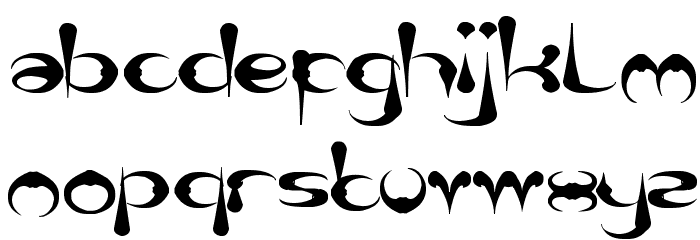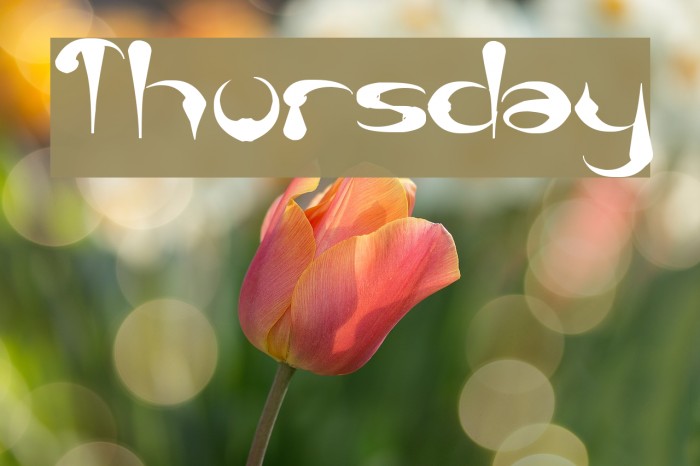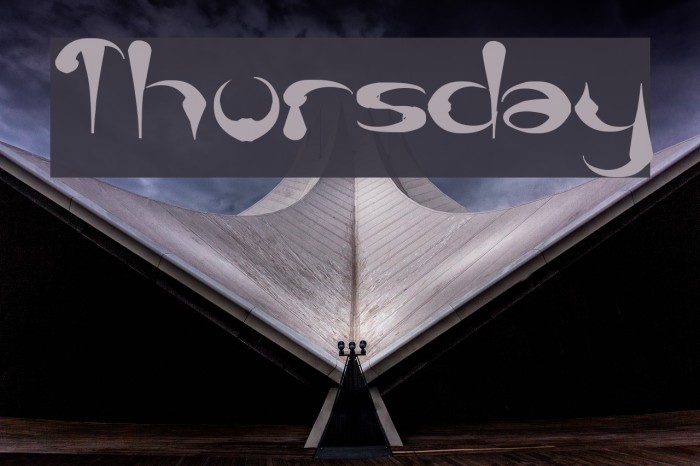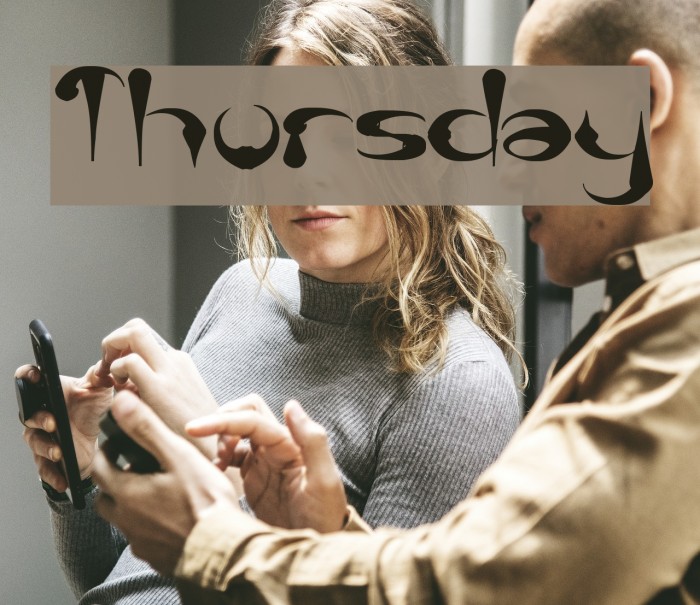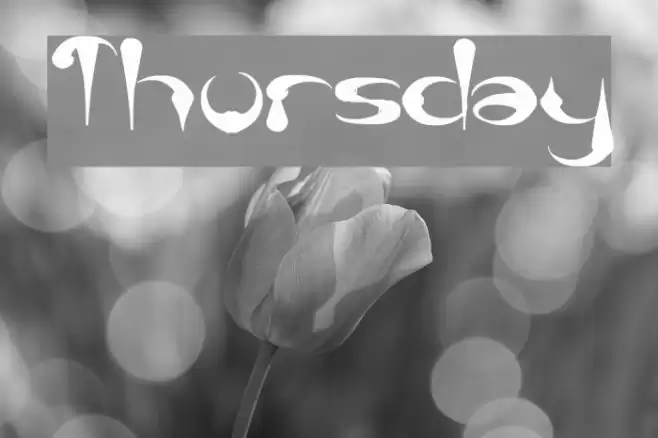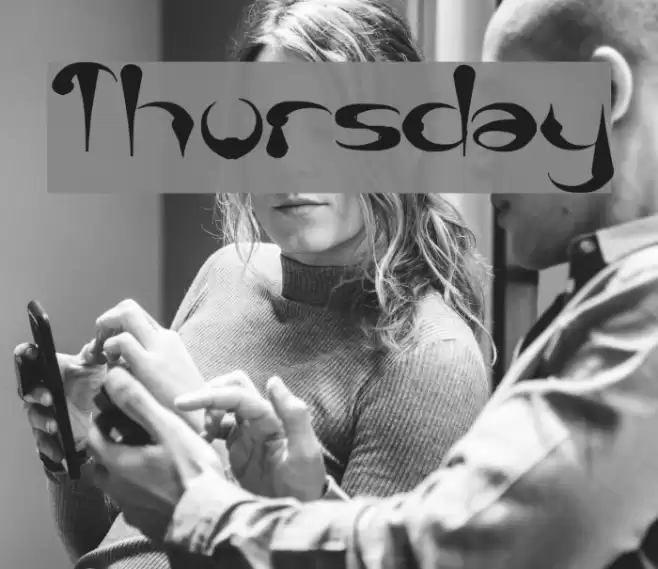
Thursday Font
This font features a highly decorative and artistic style, characterized by its unique, fluid shapes and bold, dramatic strokes. The letters have an organic, almost liquid appearance, with thick and thin contrasts that create a dynamic visual rhythm. The uppercase letters are particularly striking, with exaggerated curves and pointed terminals that give the font a whimsical yet edgy feel. The lowercase letters maintain this fluidity, offering a cohesive look across the alphabet. This font is designed to capture attention and convey a sense of creativity and flair.
A decorative font with fluid, artistic shapes and bold contrasts.
- Proposed Projects: Ideal for creative projects such as posters, album covers, or branding that requires a bold, artistic statement.
- Use Case: Logos, Posters, Headlines